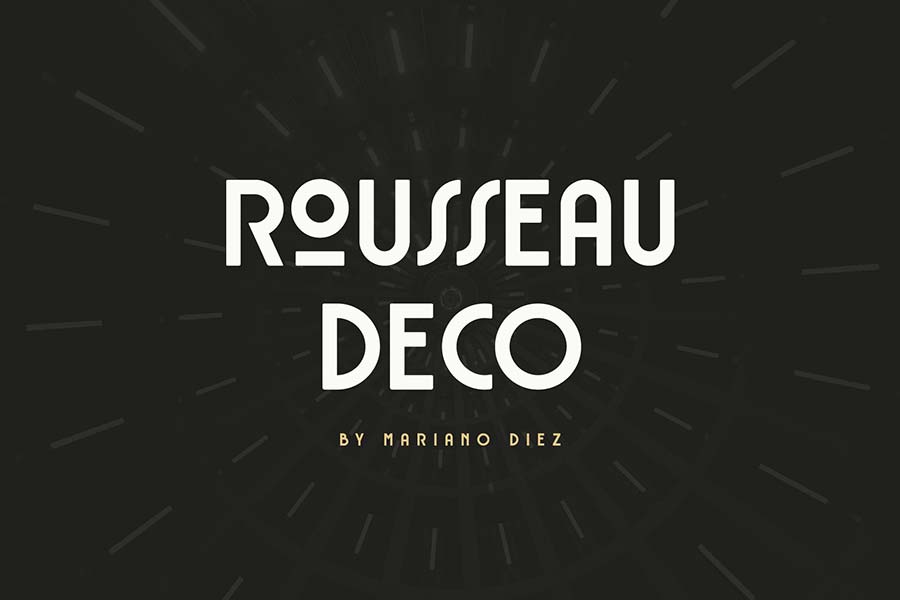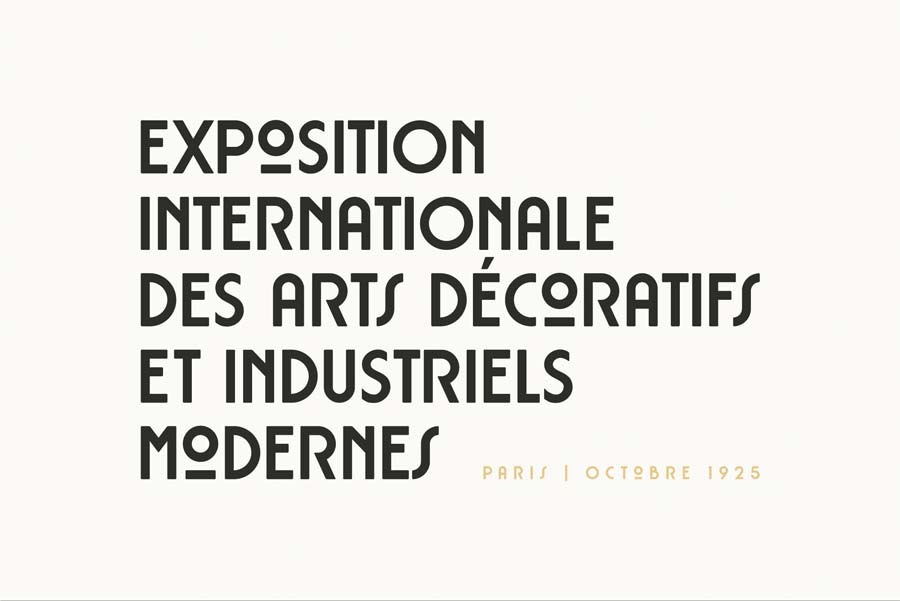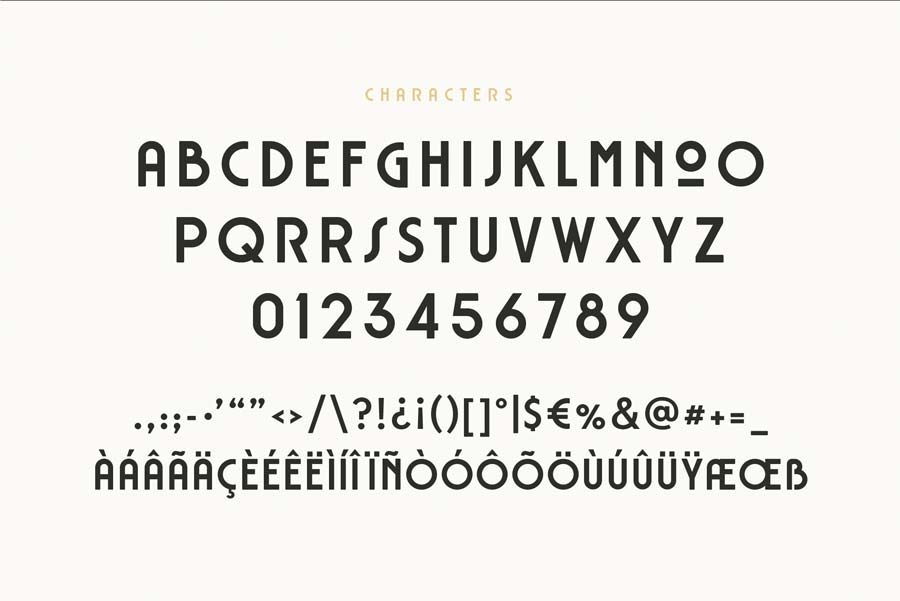
Rousseau Deco is a free typeface inspired by Art Deco. The font design is constructed in a geometrical way, and with elements of retro style to it.
The font spots uppercases with extended latin characters and symbols. I particularly like the addition of an alternative “o” character. You can download this font for free and use it for both personal and commercial projects.